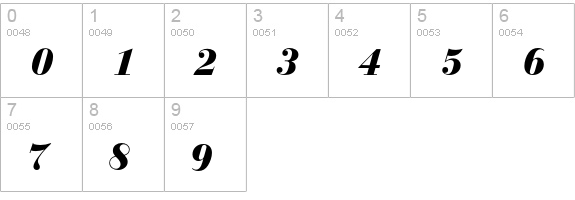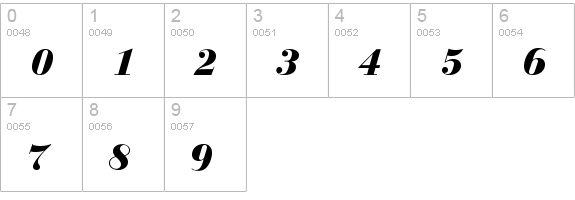
BauerBodoniEF-BoldItalic Font Details
BauerBodoniEF-BoldItalic is a striking and elegant typeface that exudes sophistication and charm. Its bold and italic design adds a touch of flair to any project, making it perfect for headlines, titles, and other prominent text elements. The strong contrast between thick and thin strokes creates a sense of dynamism and visual interest, drawing the reader's eye to the text. This font is ideal for conveying a sense of luxury and refinement, making it a popular choice for high-end branding, editorial design, and advertising. Whether used in print or digital media, BauerBodoniEF-BoldItalic commands attention and leaves a lasting impression. The best part is that BauerBodoniEF-BoldItalic is available for free download at FontsMarket.com, making it easily accessible to designers and creatives looking to elevate their projects with a touch of sophistication. Don't miss out on this stylish and versatile typeface that is sure to make a statement in any design.